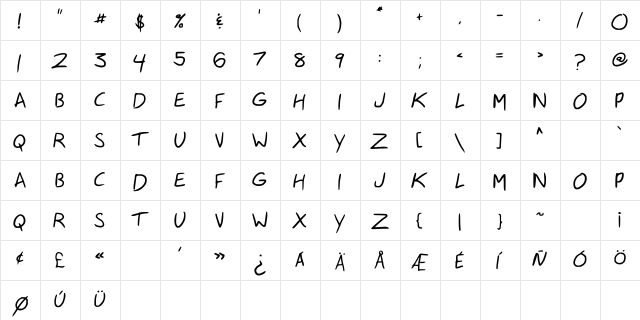
Steven Block Medium
Design Context for Steven Block Typeface
Steven Block is a composed and adaptable typeface that performs quietly and consistently across a wide range of design contexts.